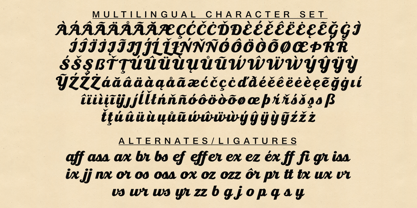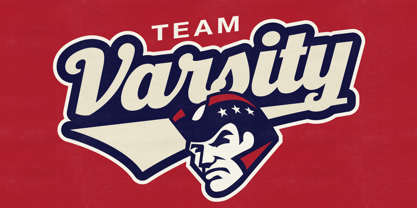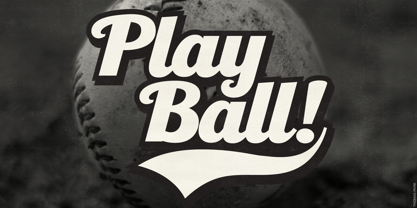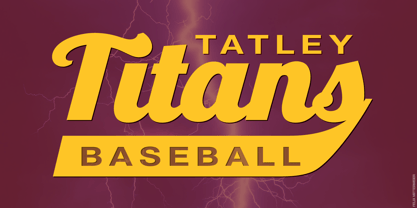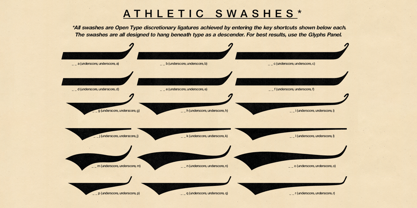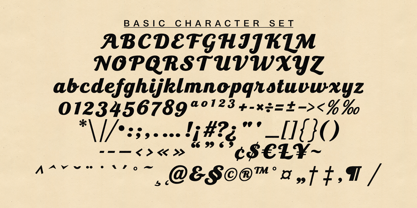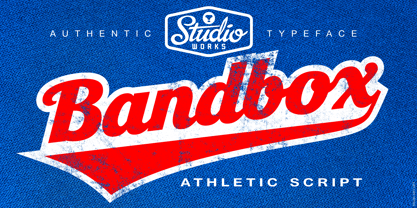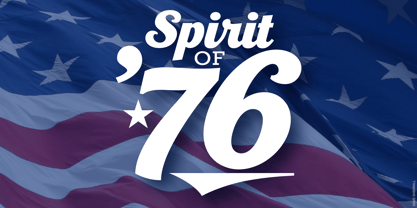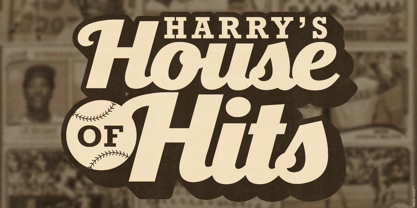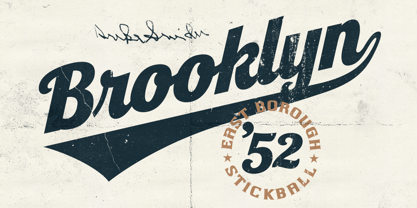
Bandbox SW
by StudioWorks
The Bandbox SW Font Family was designed by Sean Thorenson and published by StudioWorks. Bandbox SW contains 1 styles.
Inspired by classic sport logo lock-ups, Bandbox delivers with its heavy, streaming cursive letterforms. Bandbox's wide, gently-sloped script comes bundled with a collection of ligatures and 18 athletic swash banners, perfect for logotype, posters and t-shirt designs.
• Upper (A-Z) and lower case (a-z) characters
• Numbers (0-9)
• Standard punctuation and glyphs
• Alternates, Ligatures and Swashes
• Multilingual support